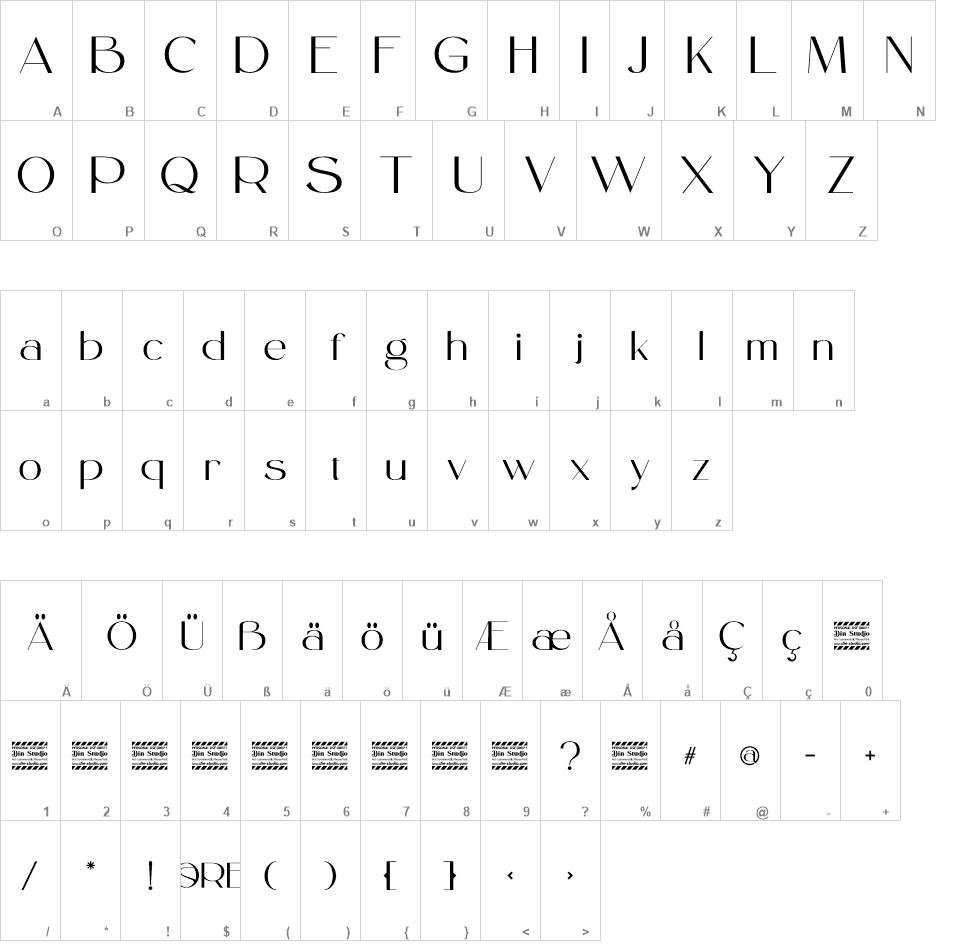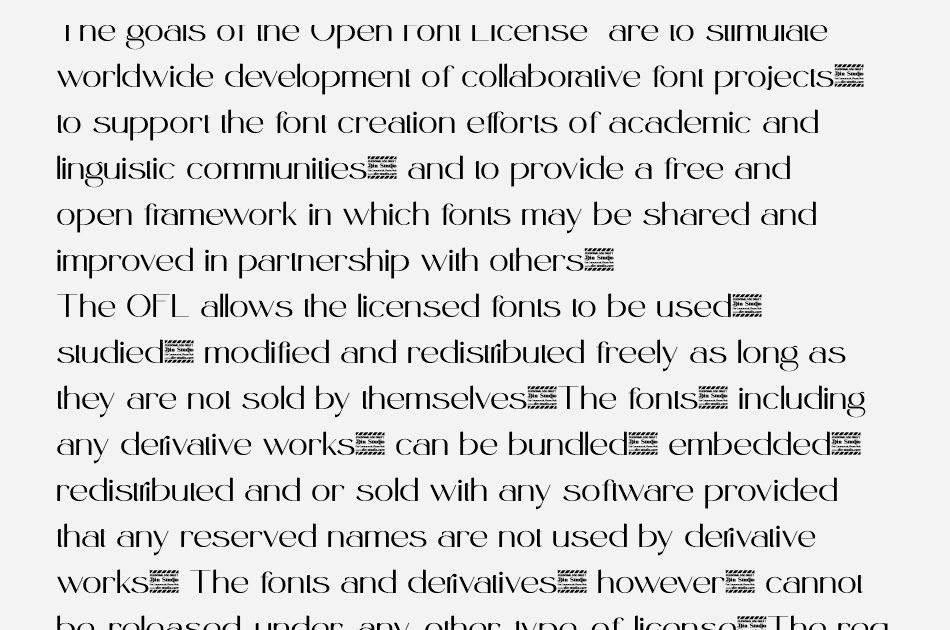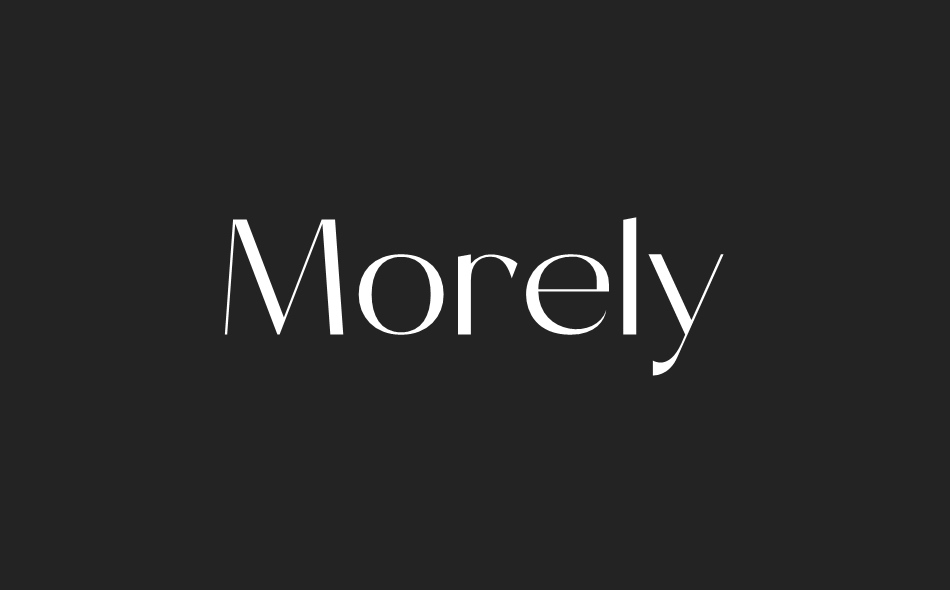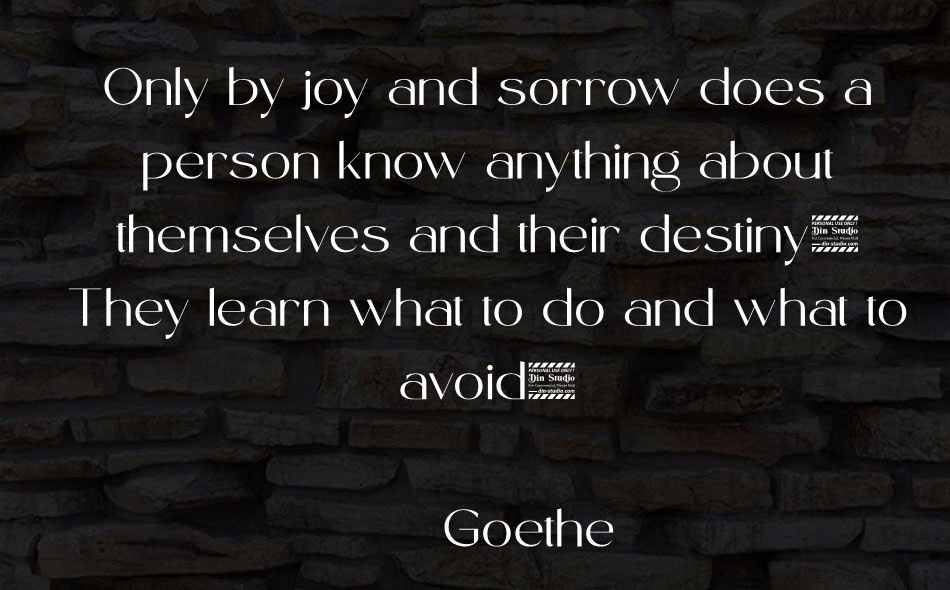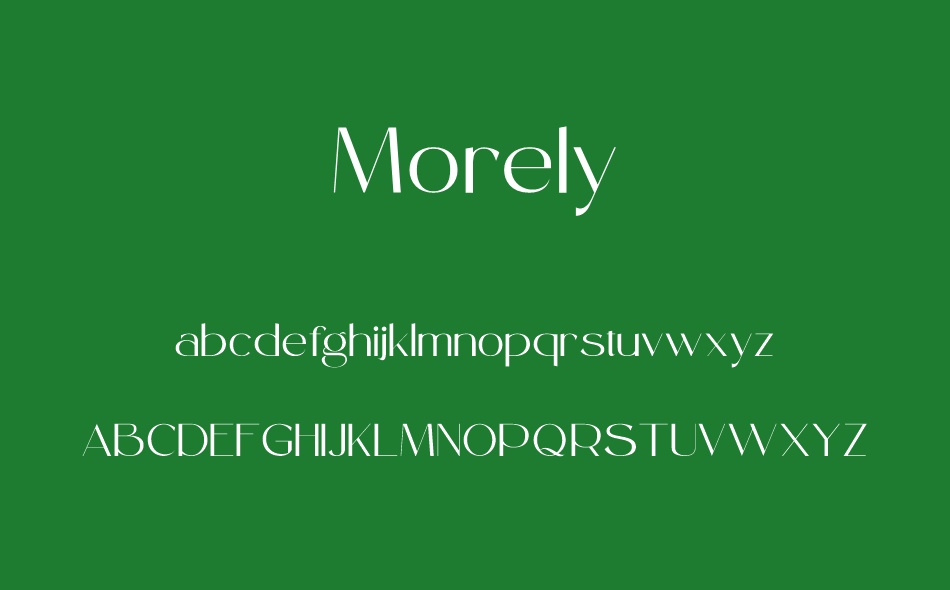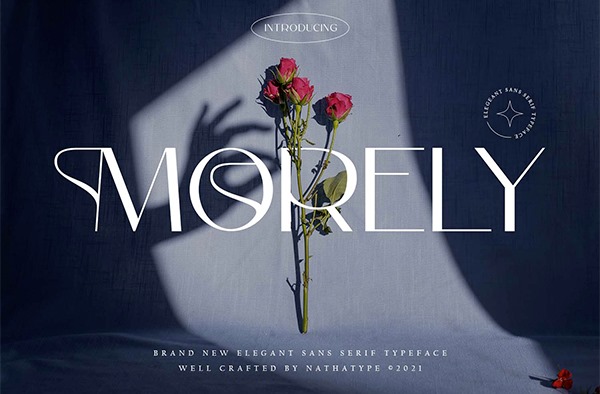
Morely font
Morely is one of the most elegant, exquisite yet strong font designs with modern vibes. This is a timeless font that will always fit your audience, clients, guests or anyone around you. Its a really head-turning font for your presentations, designs, website illustrations, etc.